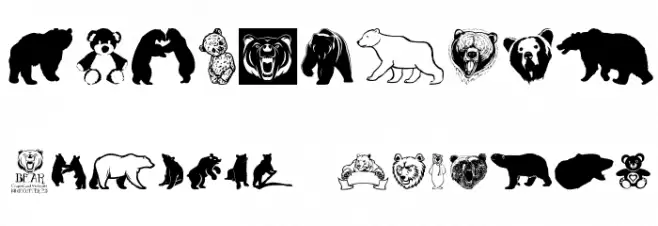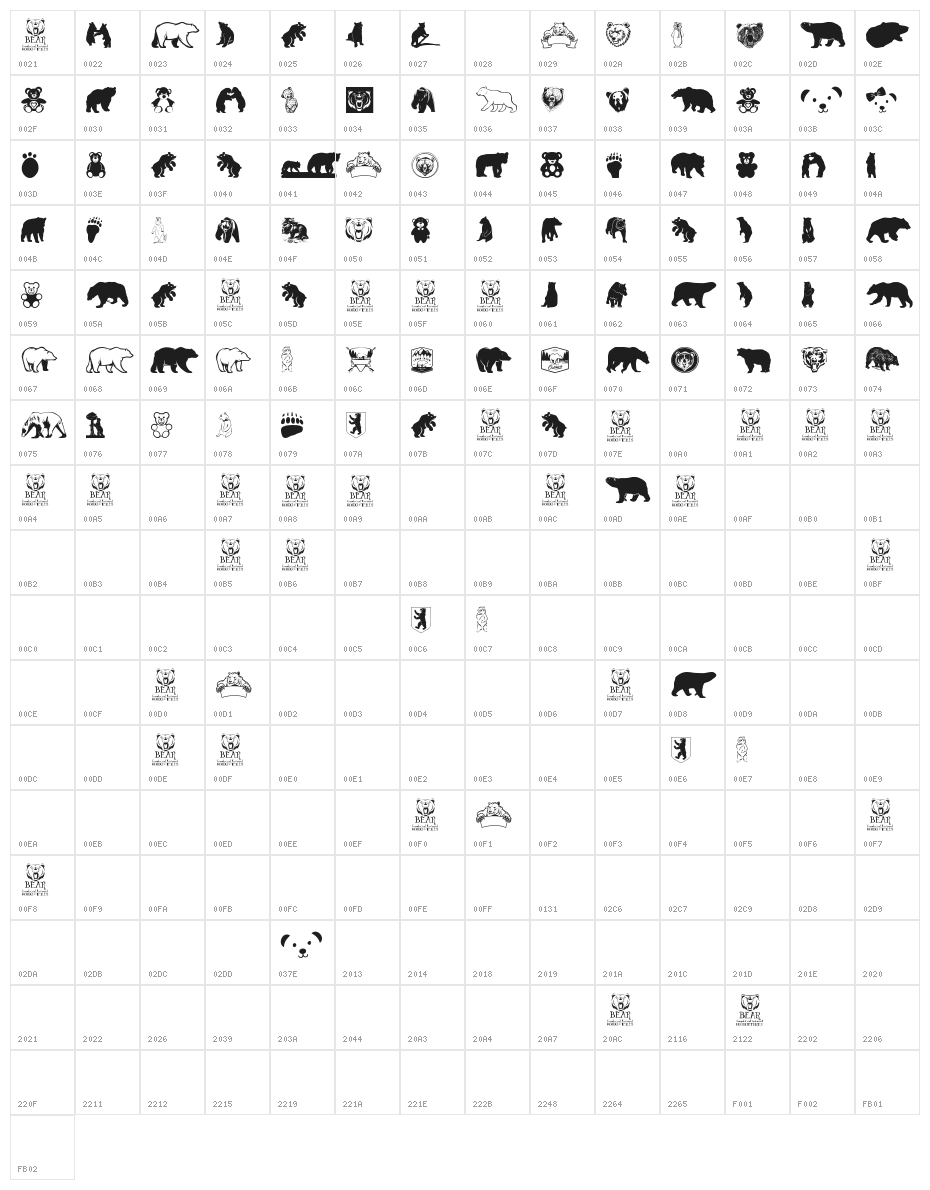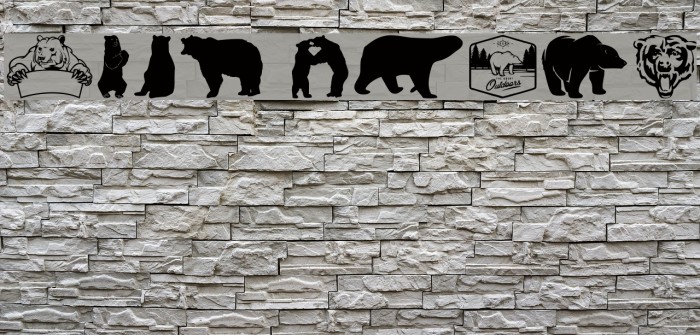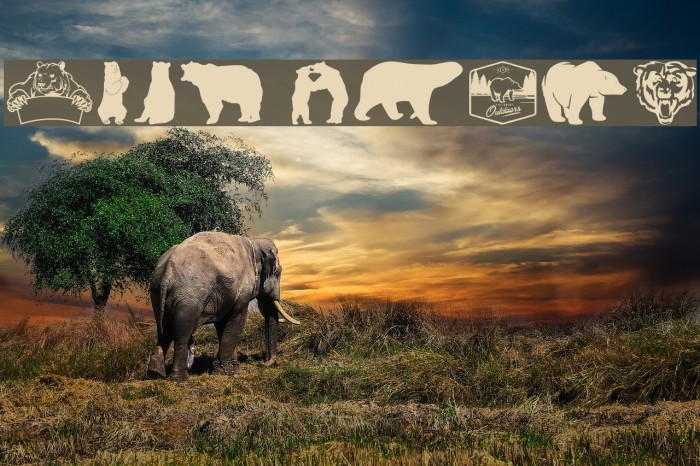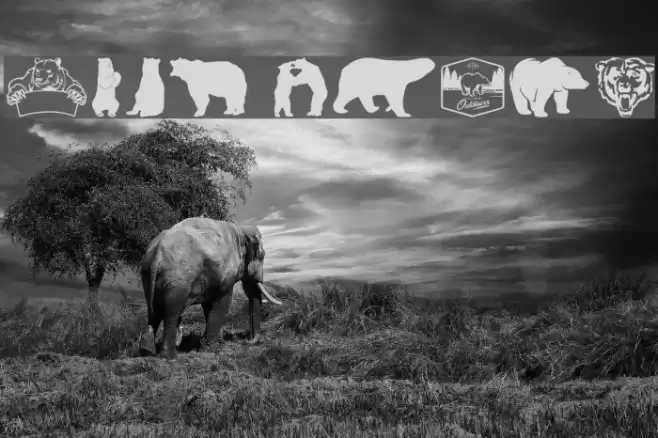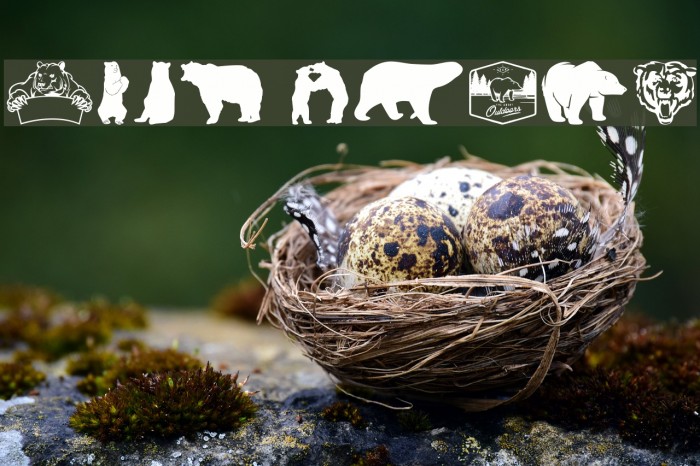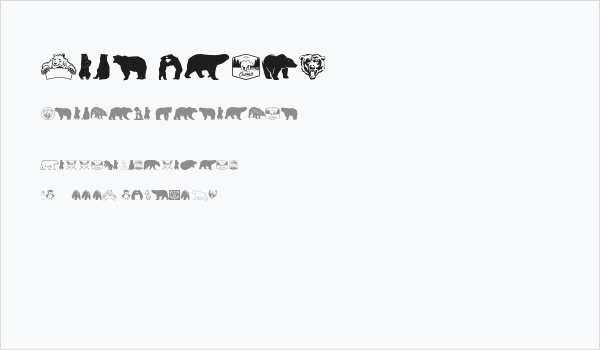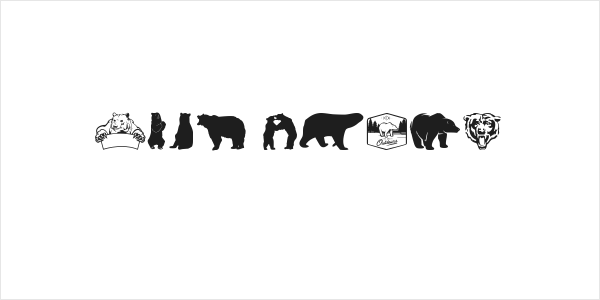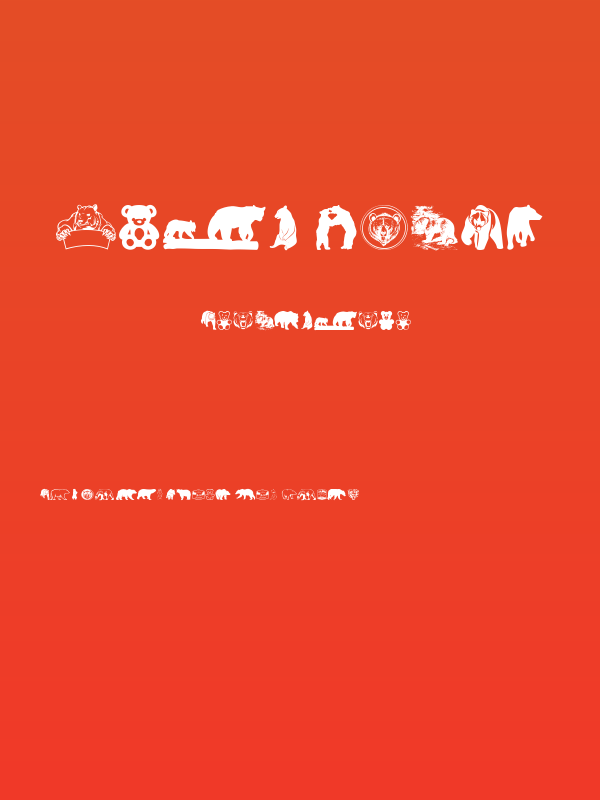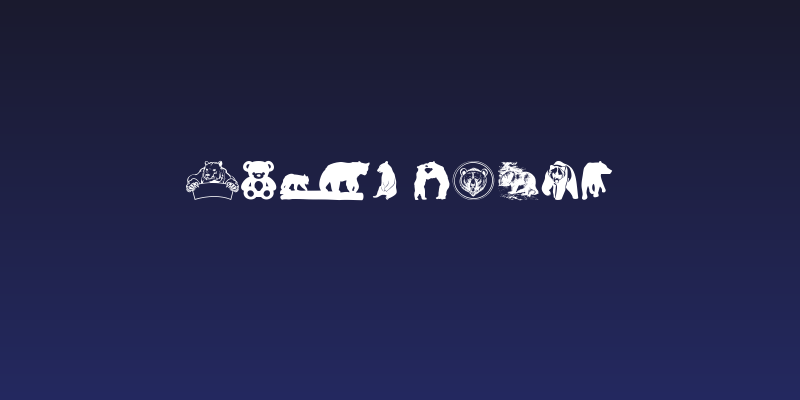
Bear Icons Font
Bear Icons Description
A collection of bear-themed pictograms and icons, featuring various bear silhouettes, cartoonish teddy bears, paw prints, and emblematic badges. The designs range from realistic to playful, with both filled and outlined styles, and include some logo-like compositions.
A diverse set of bear icons and pictograms in multiple styles from Dingbats fonts.
- Proposed Projects: Branding for outdoor or wildlife organizations, children's products, mascot logos, educational materials, badges, and themed decor.
- Overall Style: Decorative, Playful, Emblematic
- Use Case: Logos, Icons, Badges, Themed Graphics